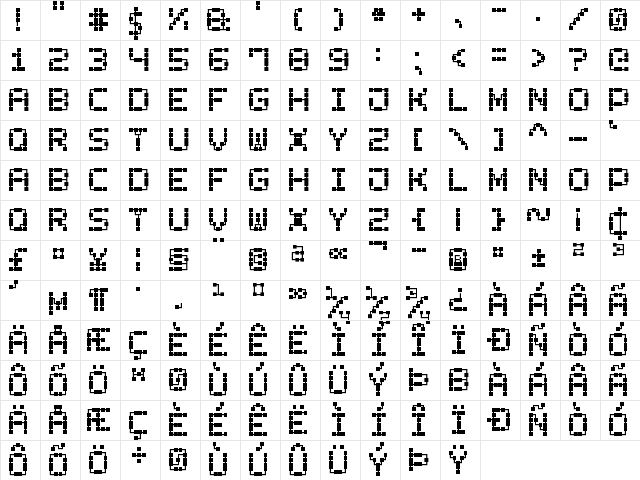
Complete Printed Circuit Board-7 Regular glyph index. Displaying only characters natively supported by Printed Circuit Board-7 Regular font.
Printed Circuit Board-7 is a composed and adaptable typeface that performs quietly and consistently across a wide range of design contexts.